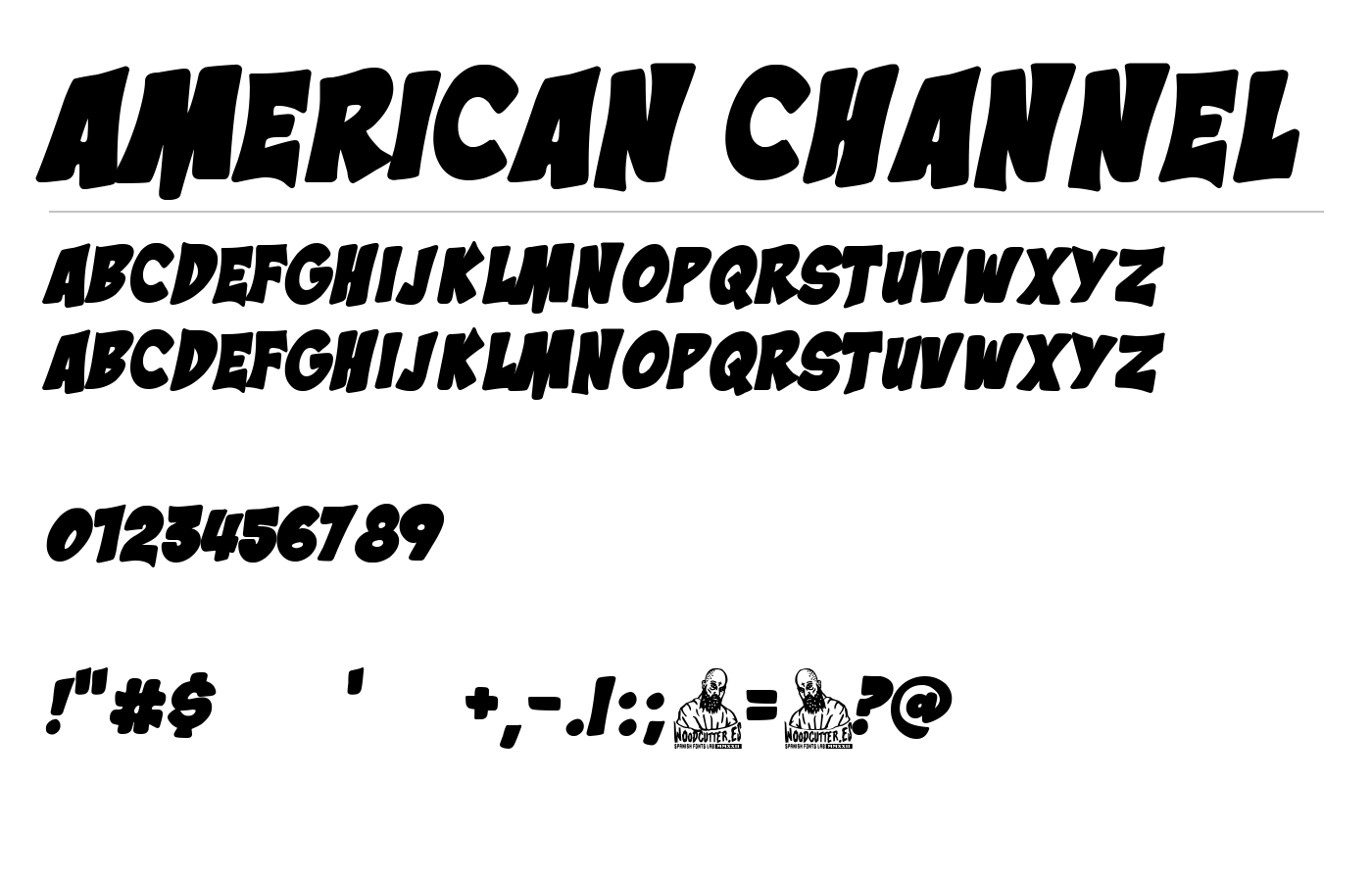
American Channel is a bold, playful display font with a strong, hand-drawn character that gives it a lively and informal vibe. Its thick strokes and slightly irregular shapes make it ideal for eye-catching headlines, posters, and branding that aims to convey energy and a casual, approachable personality. This font works well in creative and youthful contexts where a fun, dynamic style is desired.
American Channel Font
About American Channel Font